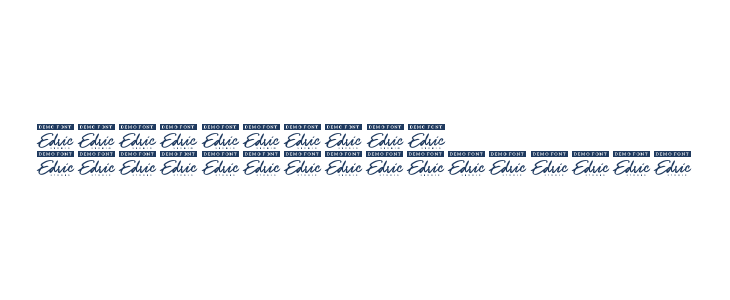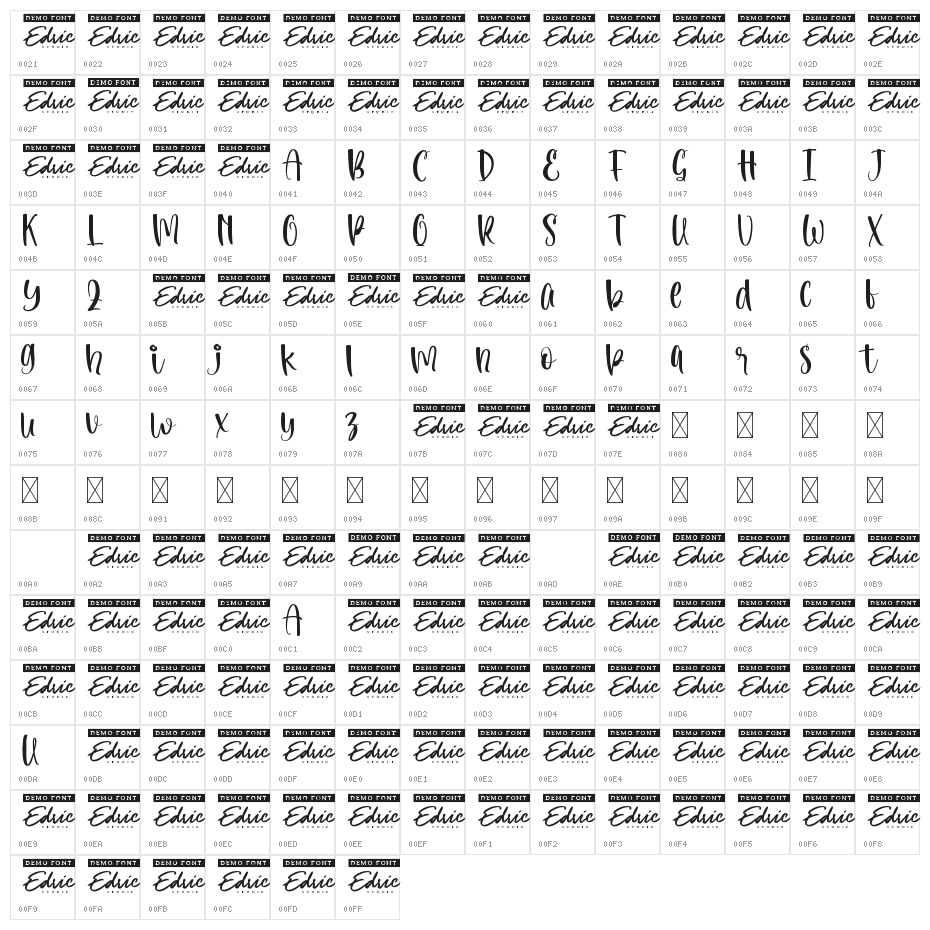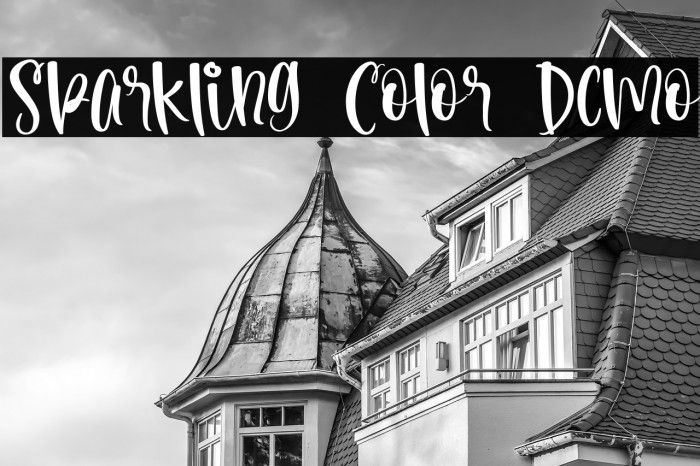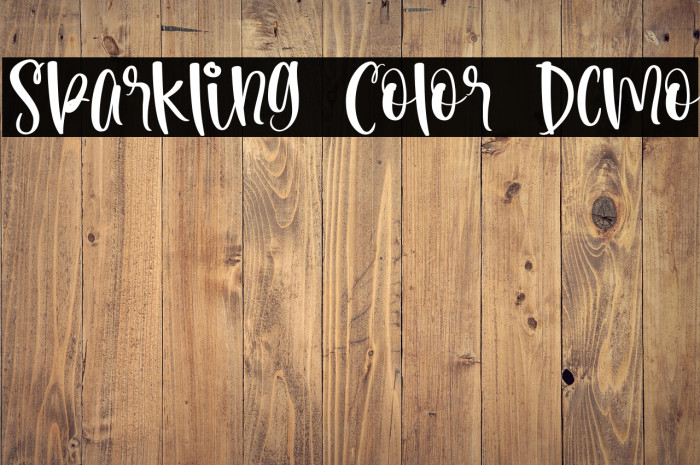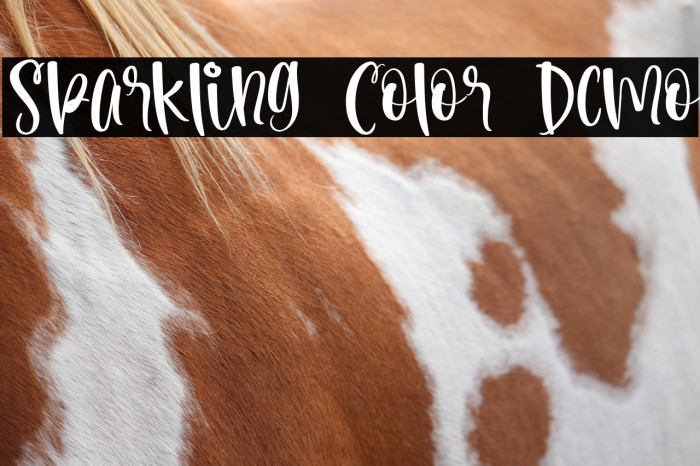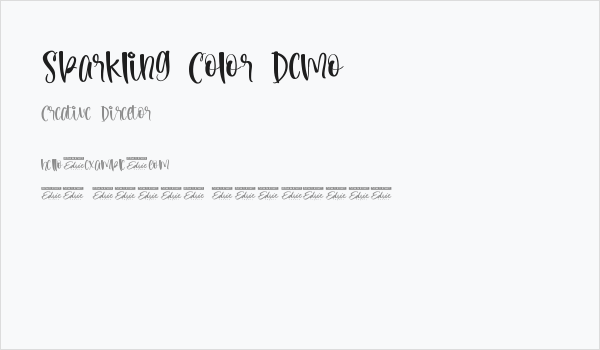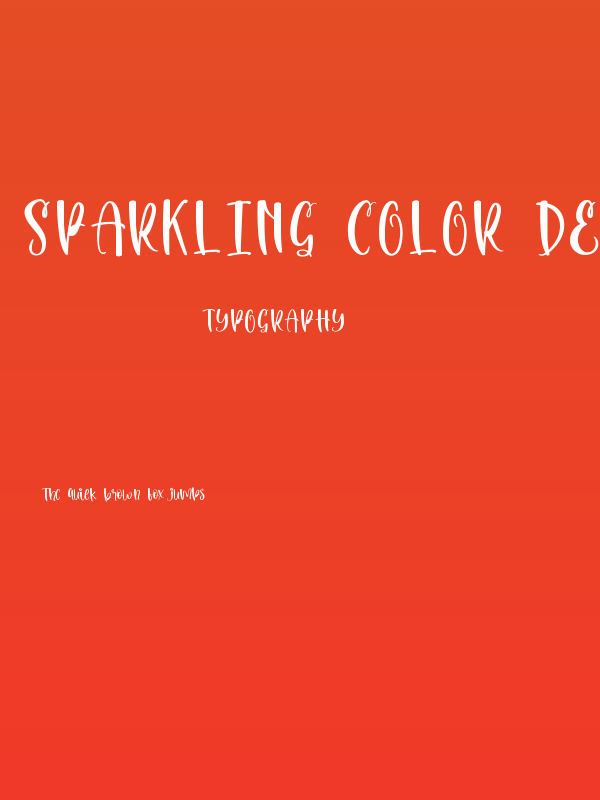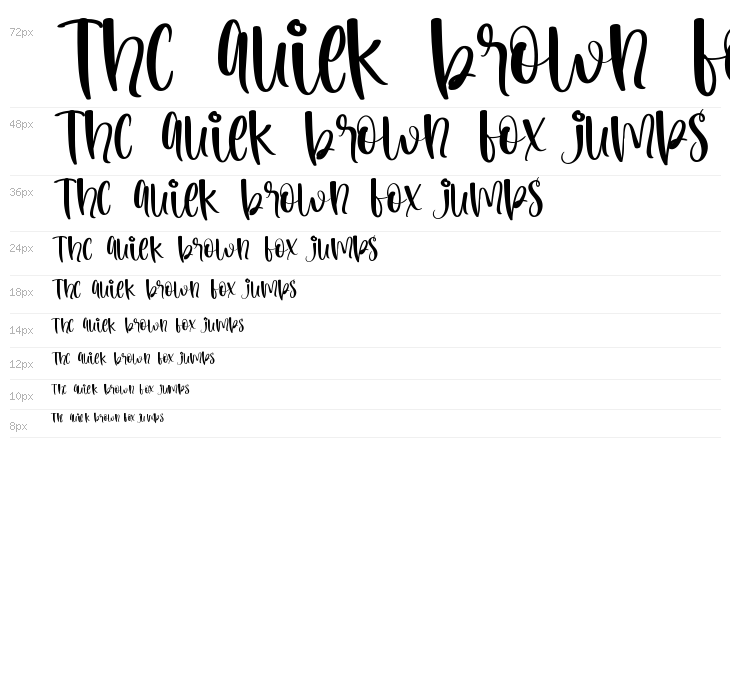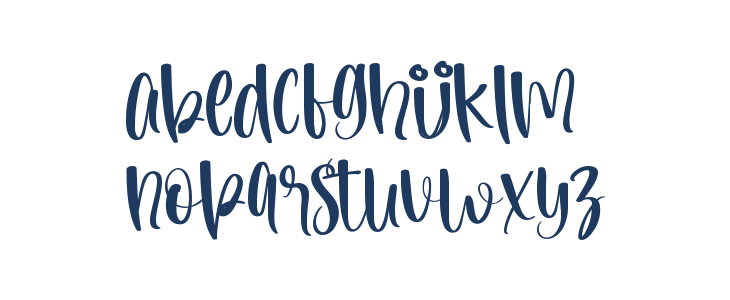
Sparkling Color Demo Font
Sparkling Color Demo Description
This font features a playful and whimsical style with a handwritten appearance. The letters are characterized by their flowing, cursive-like strokes and varying thickness, giving it a lively and dynamic feel. The uppercase letters are bold and prominent, while the lowercase letters maintain a consistent, fluid motion. The font includes unique elements such as loops and swirls, particularly noticeable in letters like 'g', 'y', and 'f'. The overall design is both artistic and approachable, making it suitable for creative projects. Its decorative nature is enhanced by the high contrast between thick and thin strokes, adding to its visual appeal.